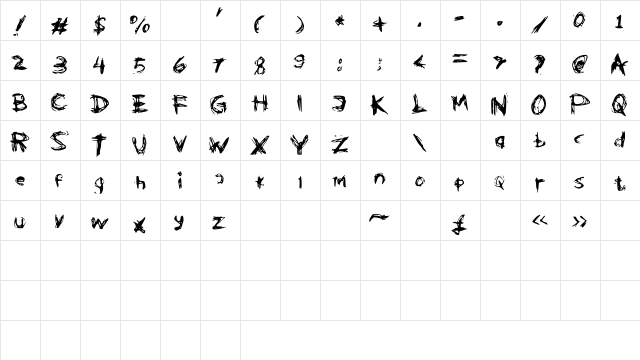
KleptoOperaGrunge Medium
Design Context for KleptoOperaGrunge Typeface
KleptoOperaGrunge embraces imperfection — its rough, textured character adds raw authenticity to designs that want to feel lived-in and unconventional.
A strong fit for alternative music projects, graffiti-adjacent design, and anything that deliberately resists polish.
Pro Tip: Use KleptoOperaGrunge at larger sizes where the texture and irregularity of each letterform can be clearly seen — it loses its character at small sizes.